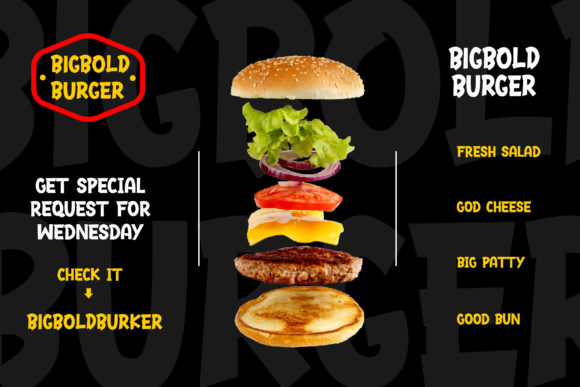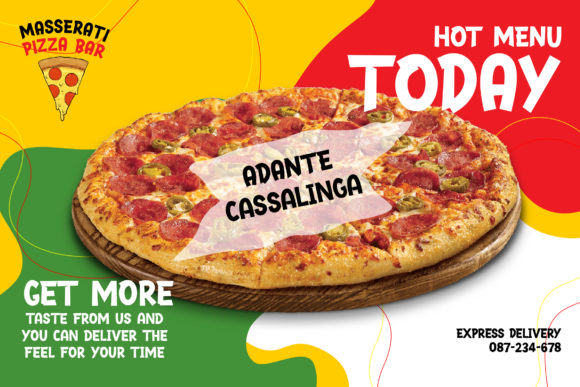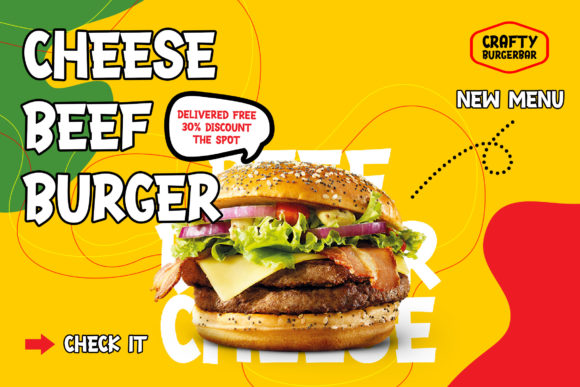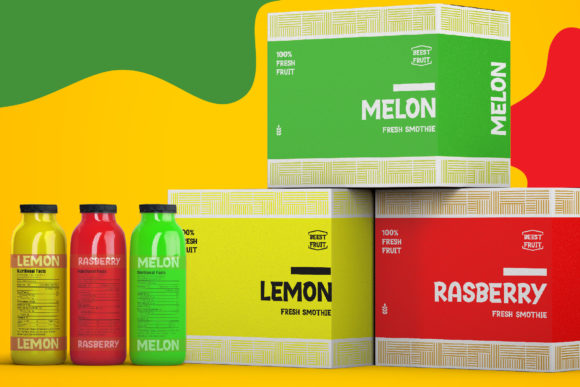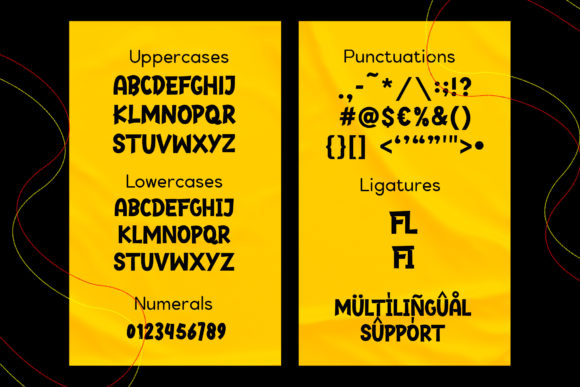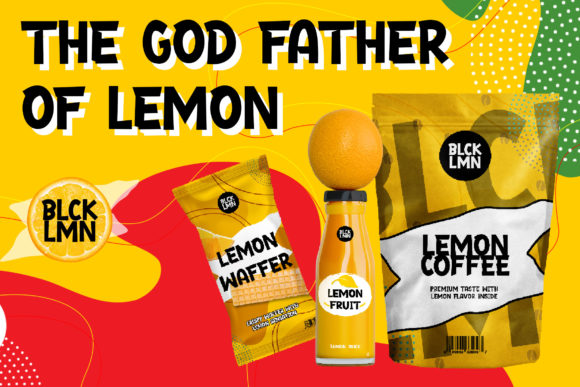
Introducing Graphone Font: The Ultimate All-Caps Display Font for Creative Projects
In the world of typography, a good font can make all the difference in elevating your design to the next level. For designers, crafters, and creatives looking for a bold and unique all-caps display font, Graphone Font is an excellent addition to your font library. With its casual yet striking appearance, Graphone Font has the potential to transform any creation into a visually stunning masterpiece.
What Makes Graphone Font Stand Out?
Graphone Font is a casual, bold, and unique all-caps display font designed to make a statement. Its distinctive style sets it apart from other fonts, making it perfect for a wide range of creative projects, from branding and advertising to packaging and digital media. Whether you’re looking to add a touch of personality to your design or create a bold visual impact, Graphone Font is the ideal choice.
Key Features of Graphone Font
- All-Caps Display Font: Graphone Font is specifically designed as an all-caps display font, making it perfect for headlines, titles, and short phrases.
- Bold and Unique: With its bold and unique style, Graphone Font is sure to grab attention and leave a lasting impression.
- Casual yet Striking: The font’s casual appearance makes it versatile and easy to pair with other fonts, while its striking style ensures it remains a focal point in any design.
- Multipurpose: Graphone Font is suitable for a wide range of creative projects, including branding, advertising, packaging, digital media, and more.
Benefits of Using Graphone Font
Adding Graphone Font to your font library can have a significant impact on your design work. Here are just a few benefits of using Graphone Font:
- Elevate Your Designs: With Graphone Font, you can instantly elevate your designs and give them a professional touch.
- Stand Out from the Crowd: The font’s unique style ensures your designs stand out from the crowd and grab attention.
- Versatility: Graphone Font is versatile and can be used for a wide range of creative projects, making it a valuable addition to your font library.
- Easy to Pair: The font’s casual appearance makes it easy to pair with other fonts, allowing you to create stunning font combinations.
Tips for Using Graphone Font Effectively
To get the most out of Graphone Font, here are some tips for using it effectively:
- Use for Headlines and Titles: Graphone Font is perfect for headlines and titles, where its bold and unique style can make a maximum impact.
- Pair with Other Fonts: Experiment with pairing Graphone Font with other fonts to create stunning font combinations.
- Use for Branding and Advertising: Graphone Font is ideal for branding and advertising projects, where its bold and attention-grabbing style can help grab attention.
- Experiment with Colors and Textures: Don’t be afraid to experiment with different colors and textures to add depth and interest to your designs.
In conclusion, Graphone Font is an exceptional all-caps display font that can elevate any creative project. With its bold and unique style, versatility, and ease of use, Graphone Font is a valuable addition to any font library. Whether you’re a designer, crafter, or creative, Graphone Font is sure to become a go-to font for all your design needs.